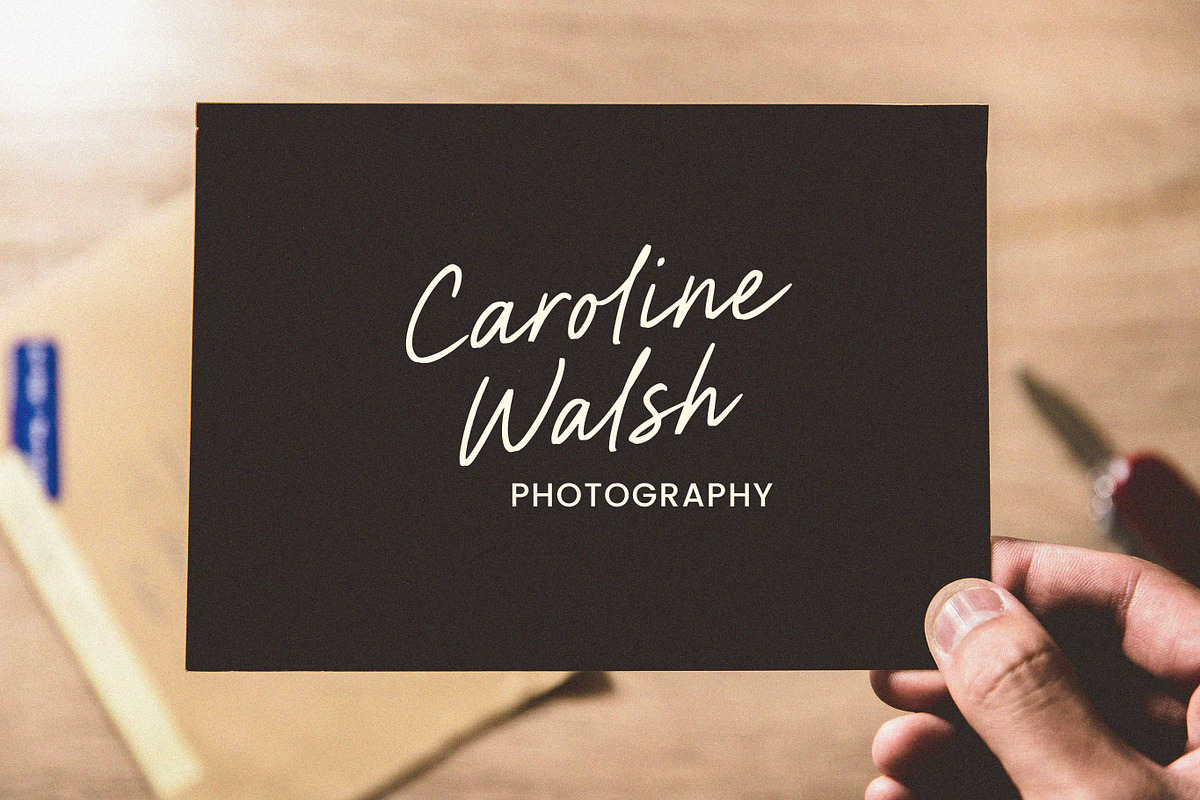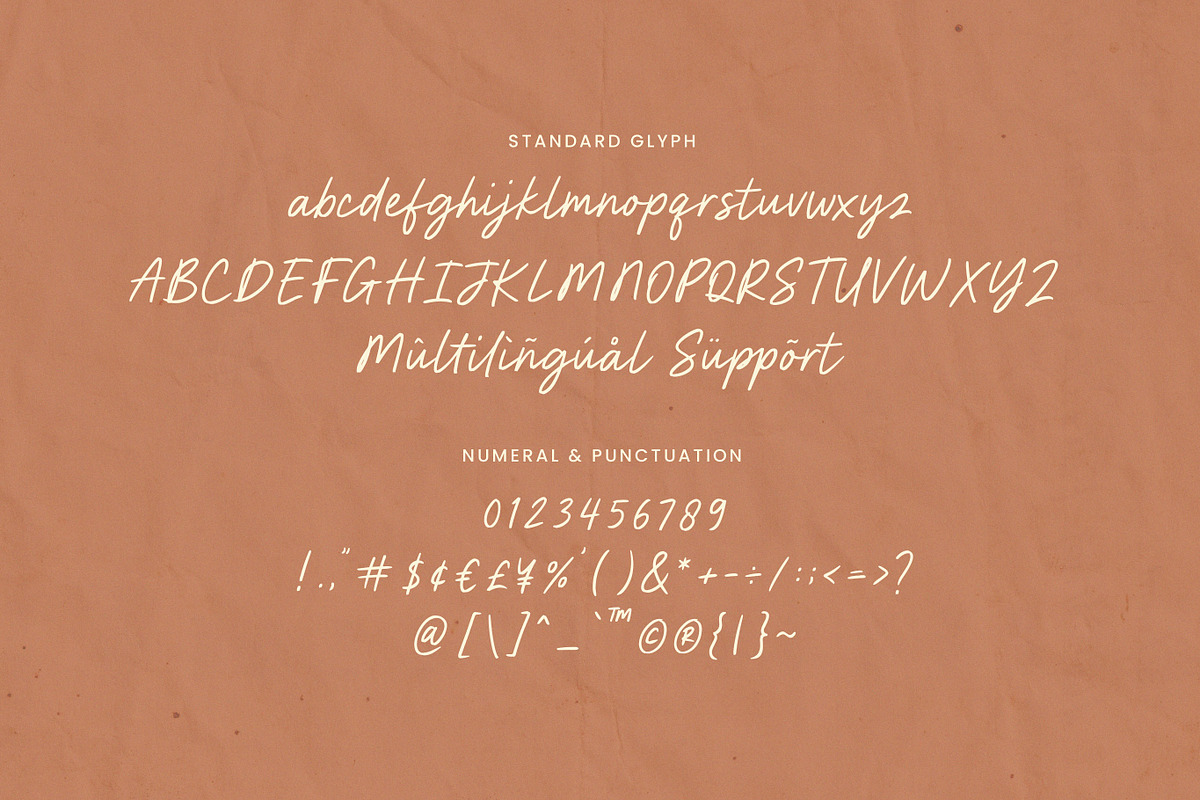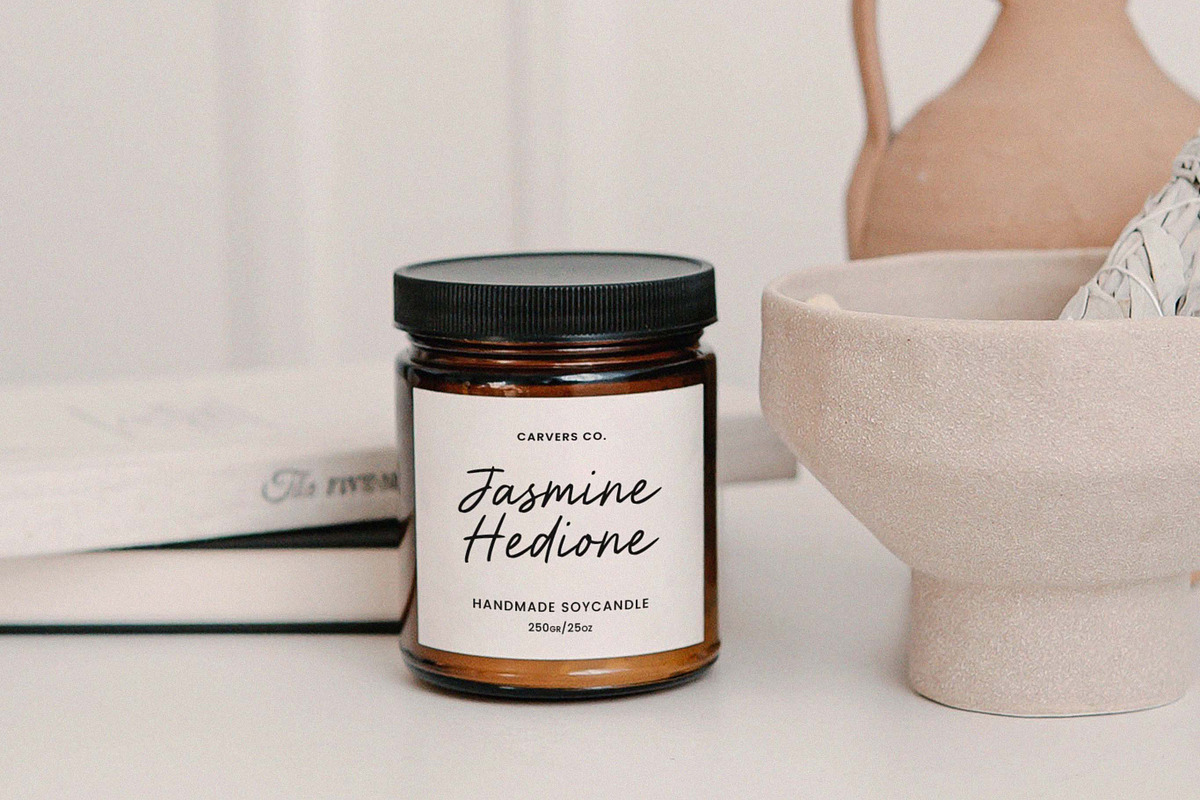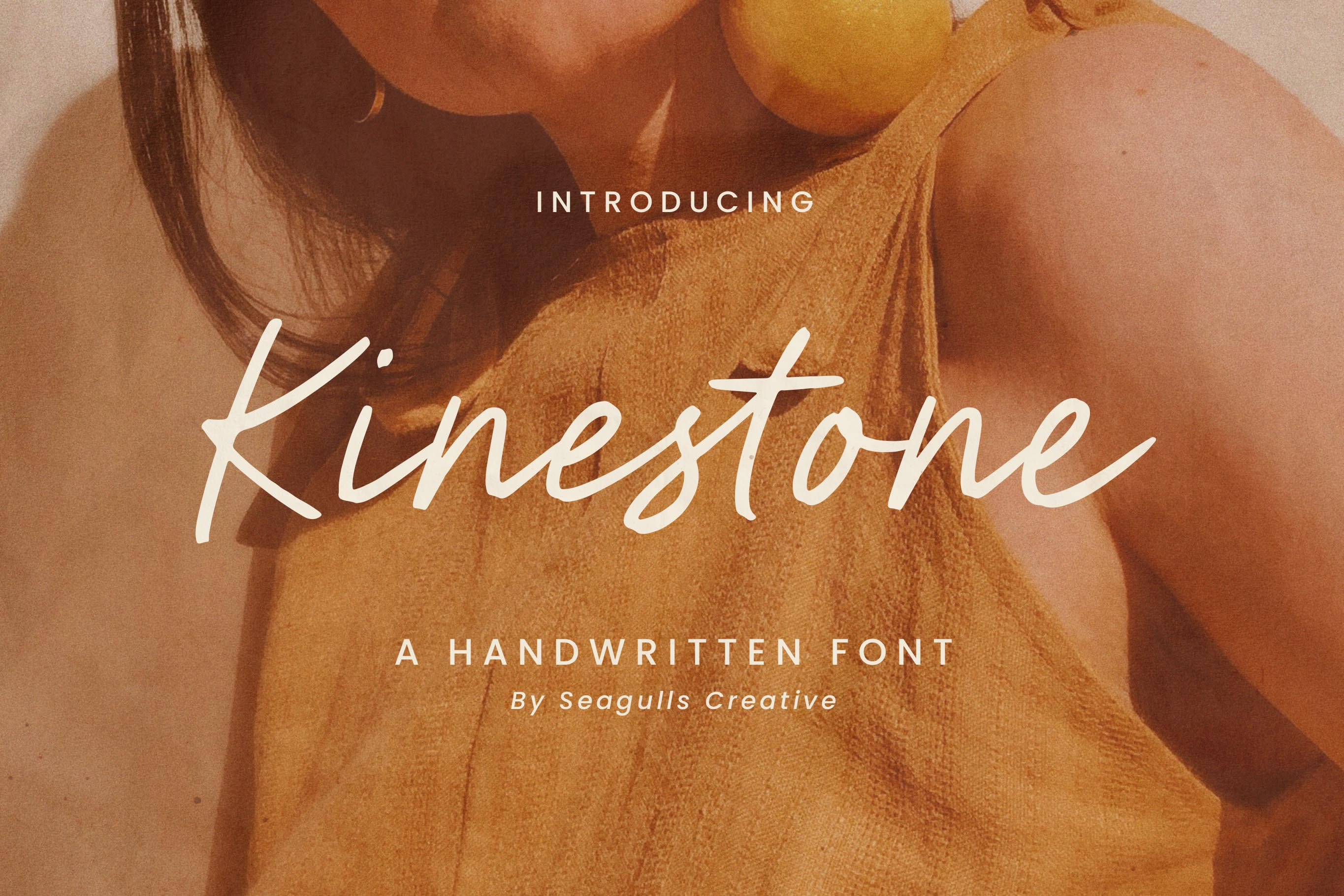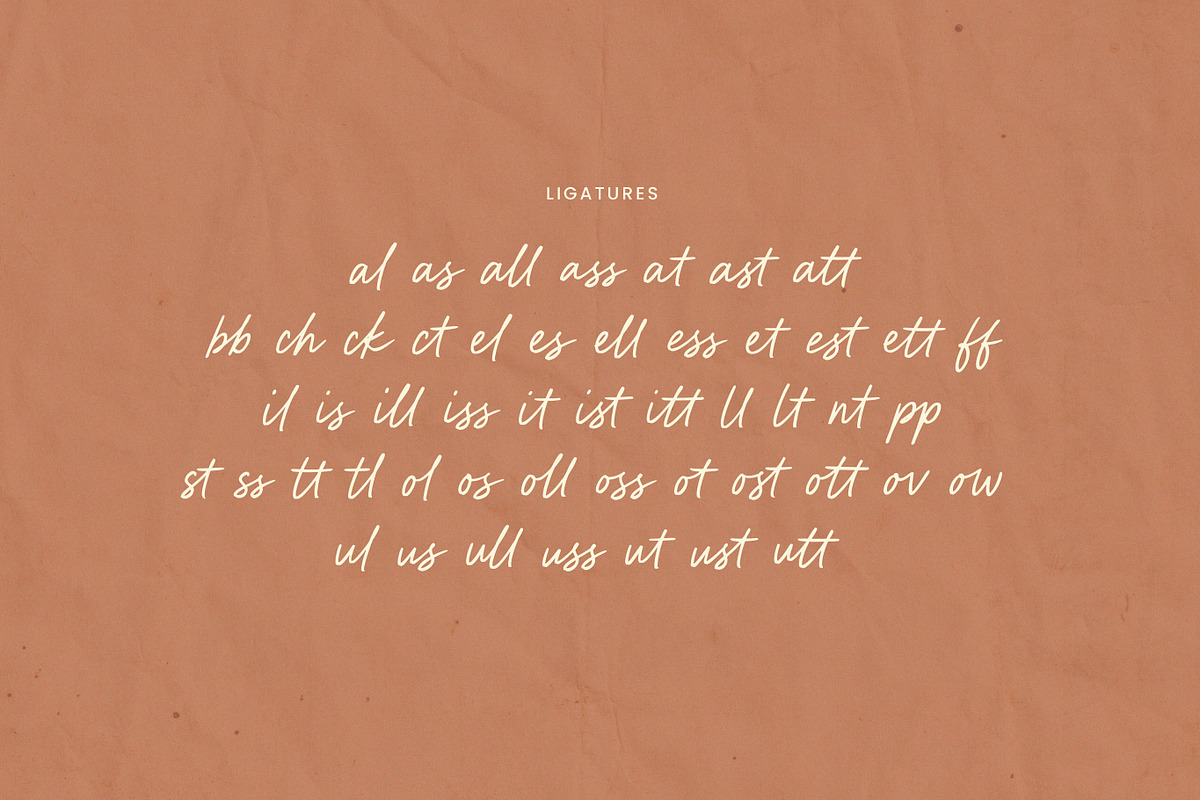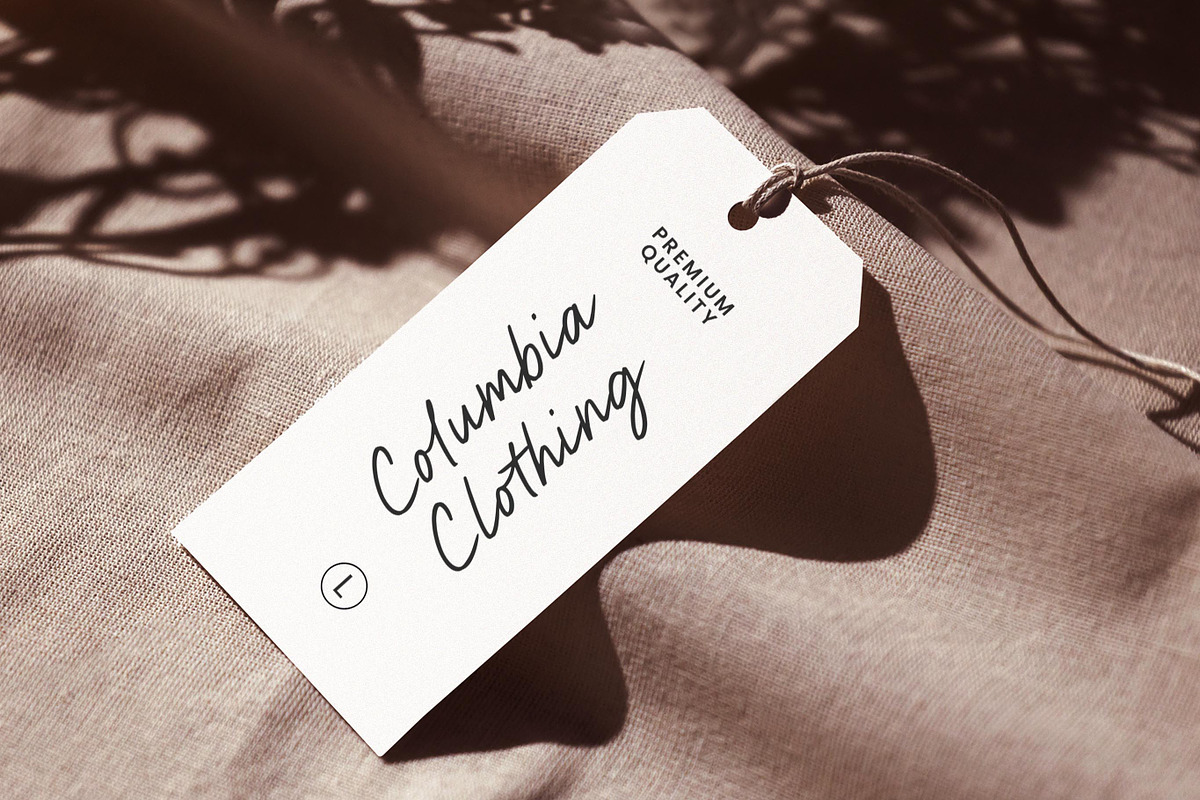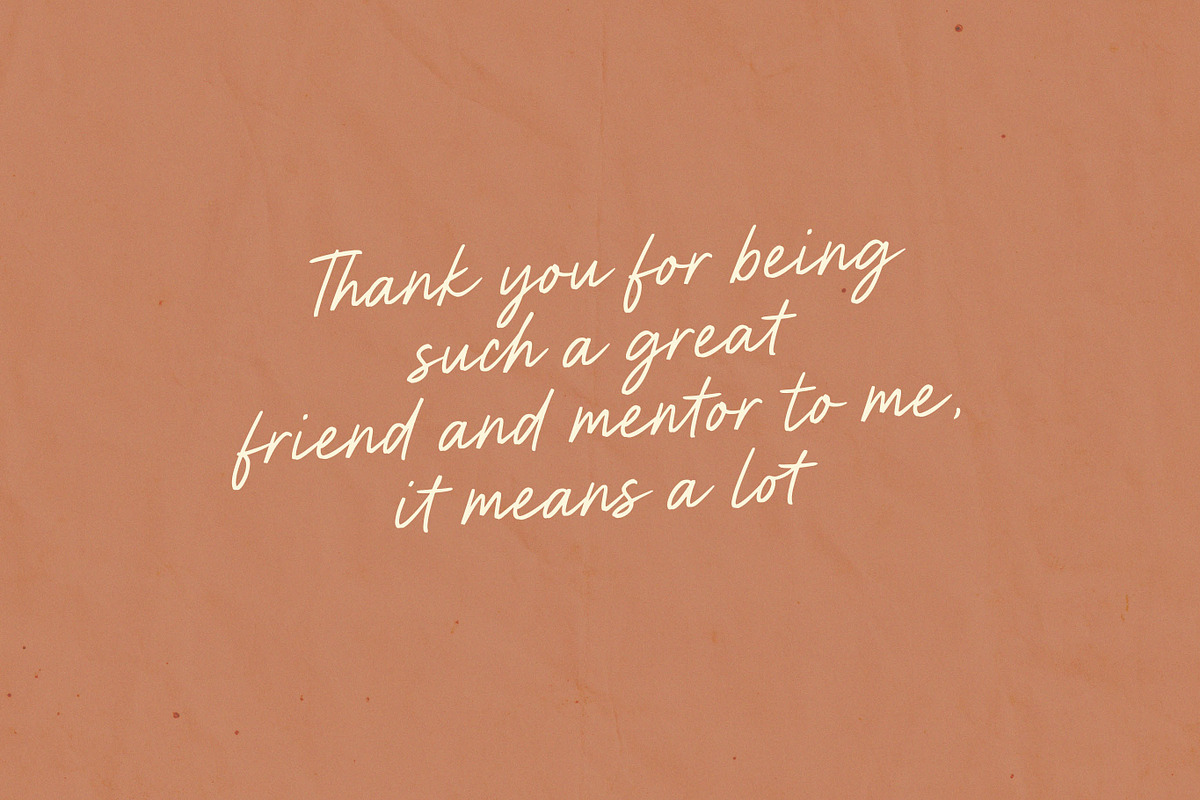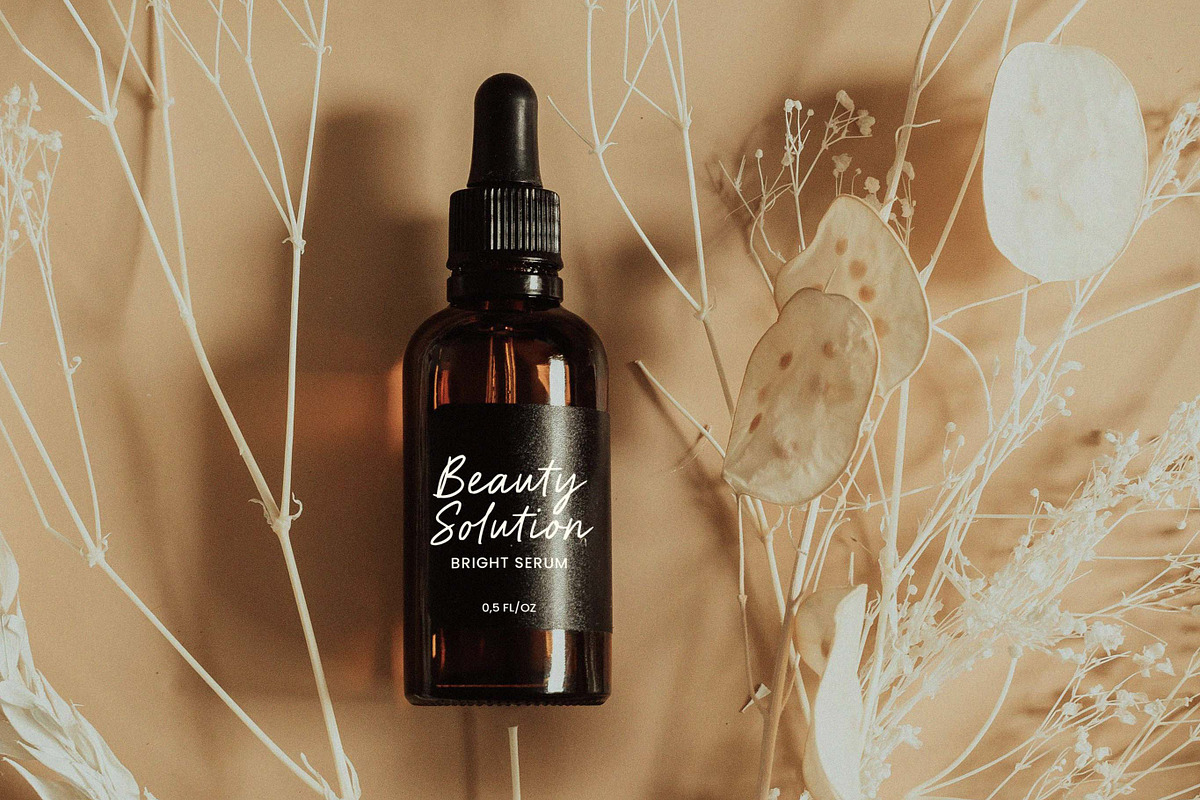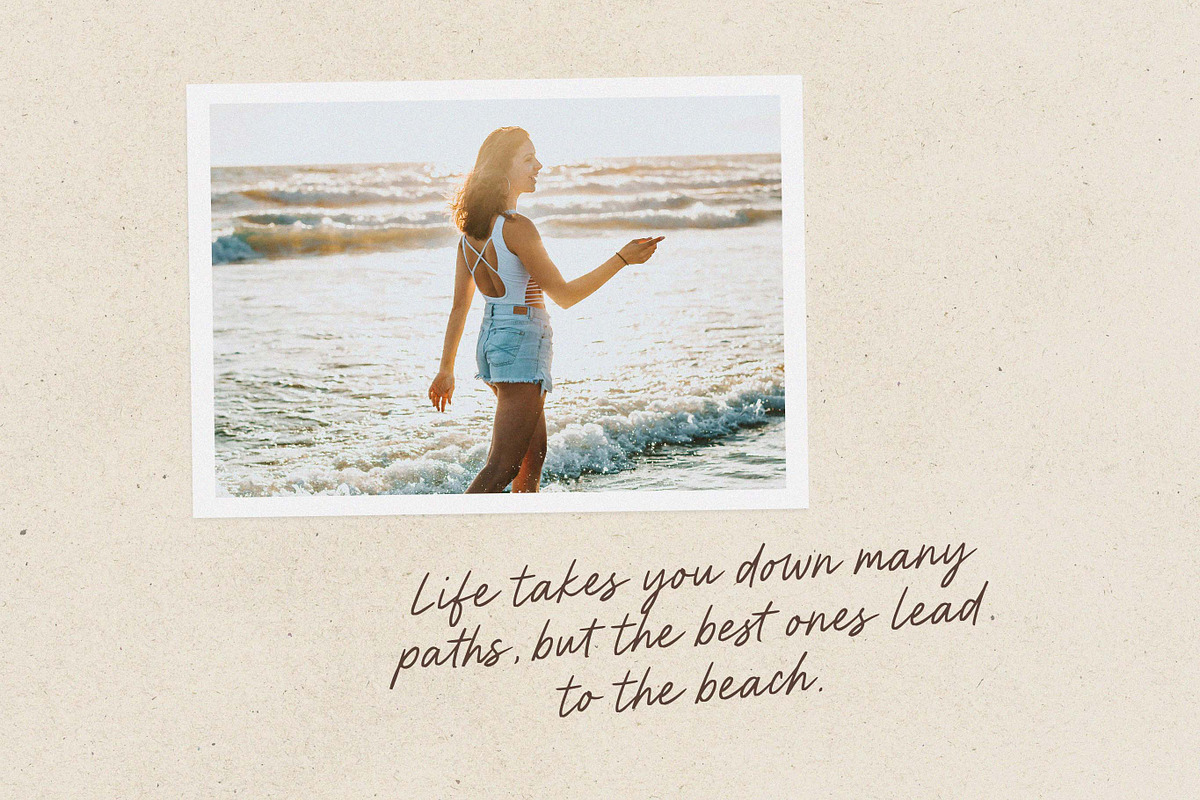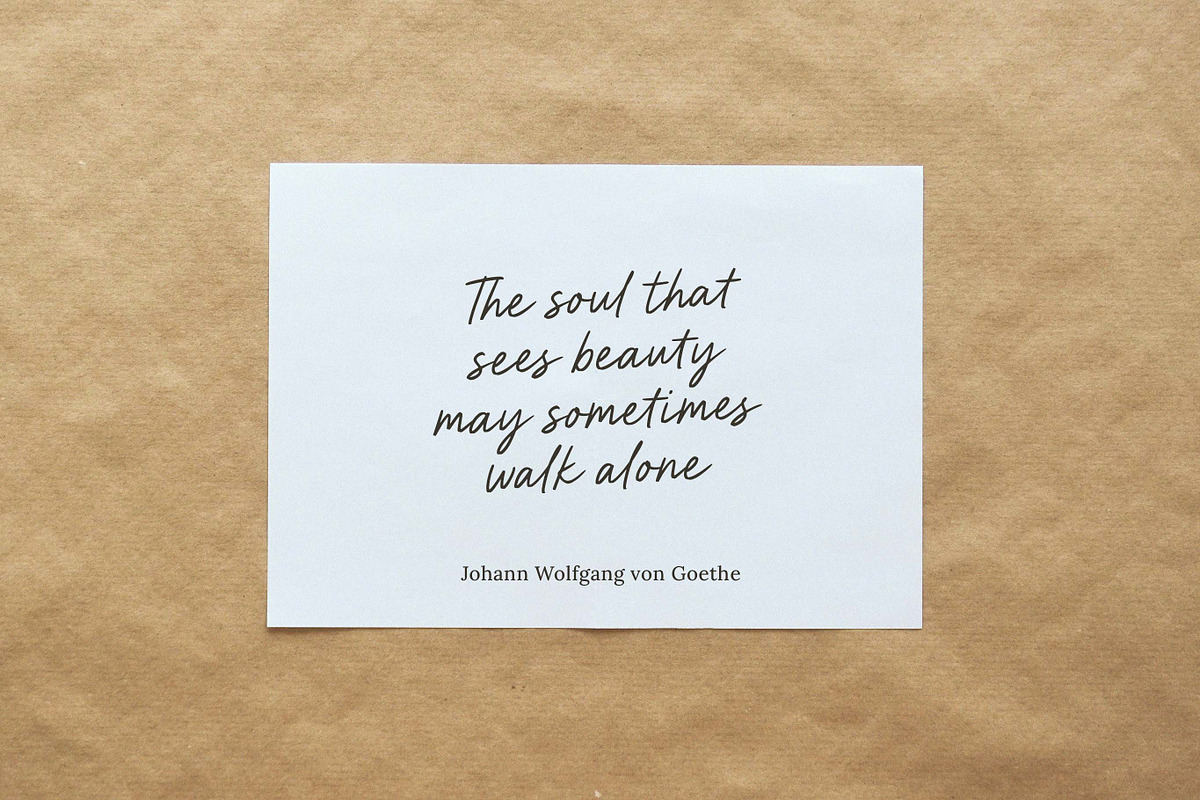
Kinestone Handwritten Font
Hello everyone, I would like to introduce Kinestone a modern and stylish handwritten font.
Kinestone can be used for a variety of projects such as branding, labels, photography, invitations, stationery, wedding designs, social media posts, advertising, product packaging, product design, and more.
- Letters, numbers, symbols, punctuation and ligatures
- Fonts include multilingual support